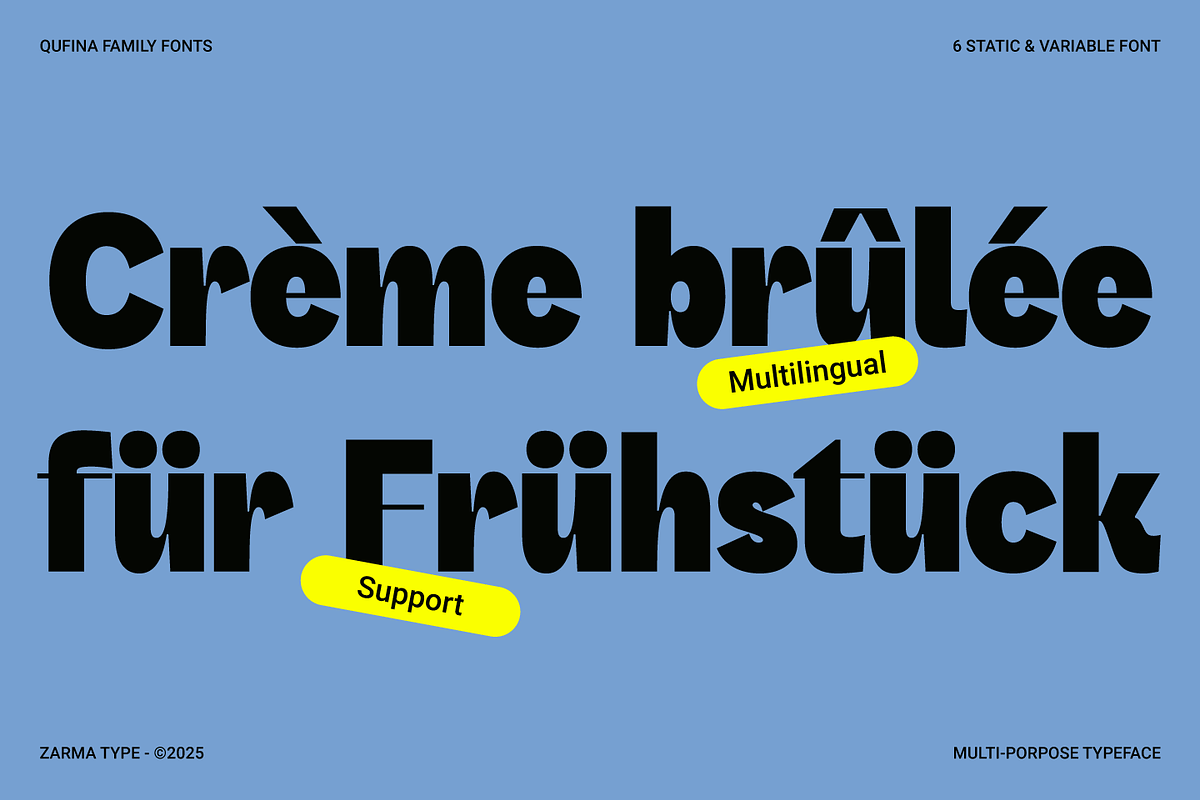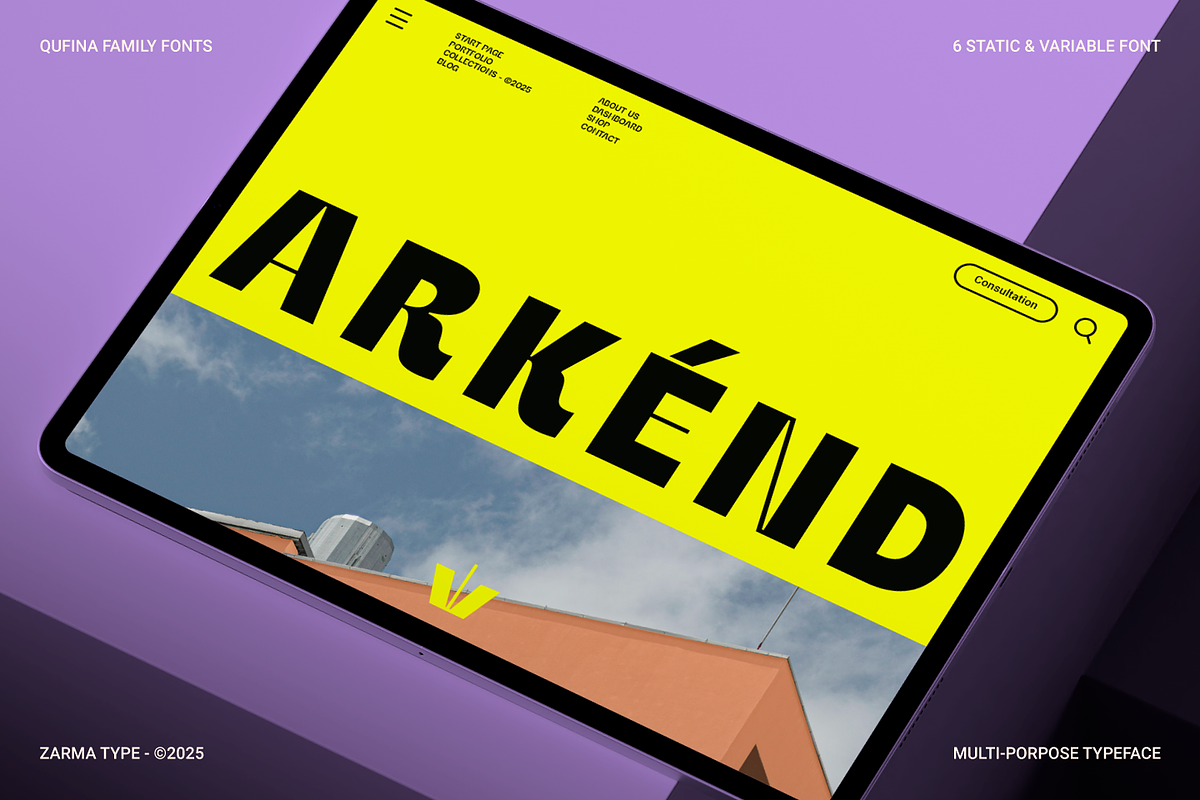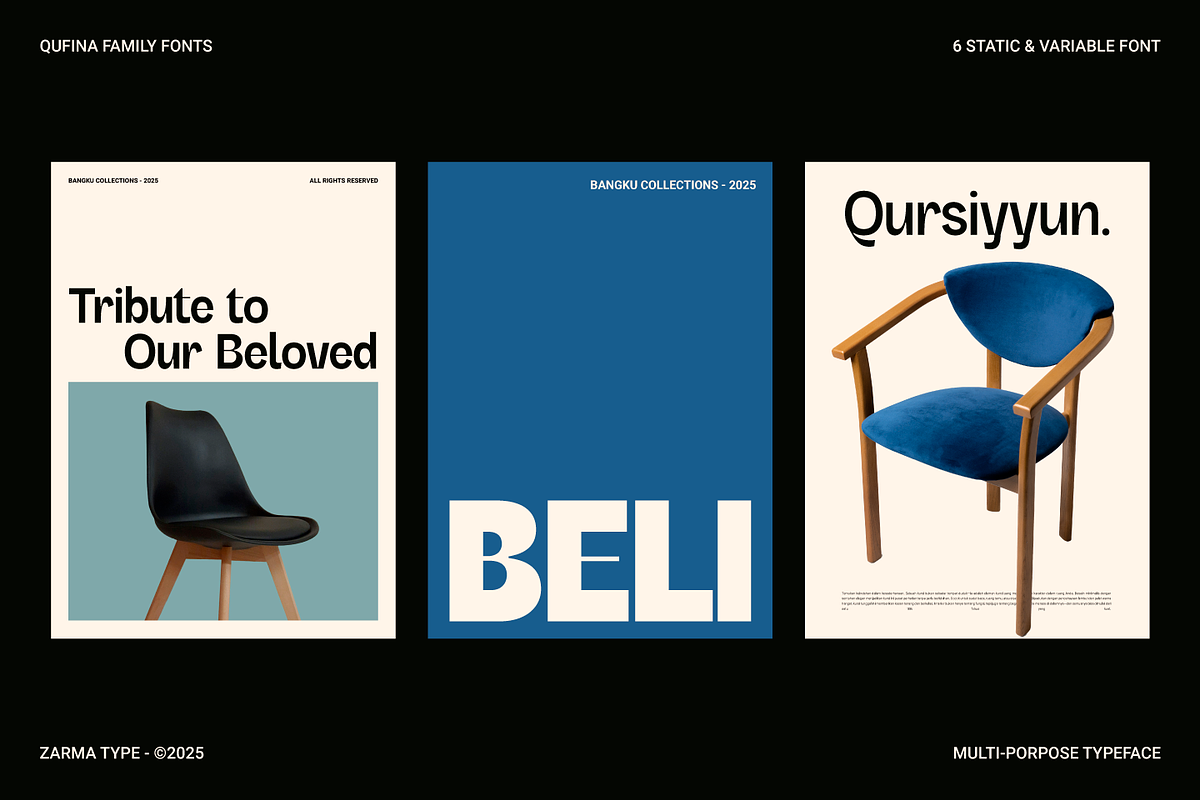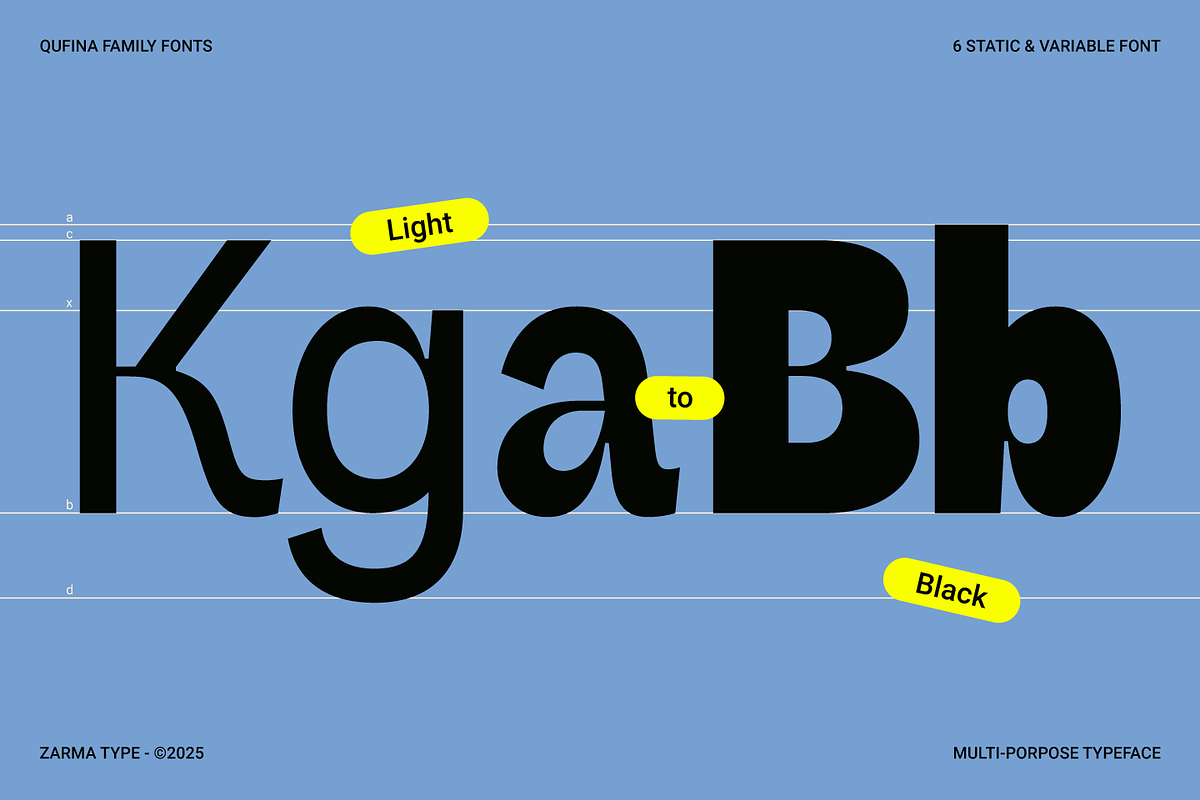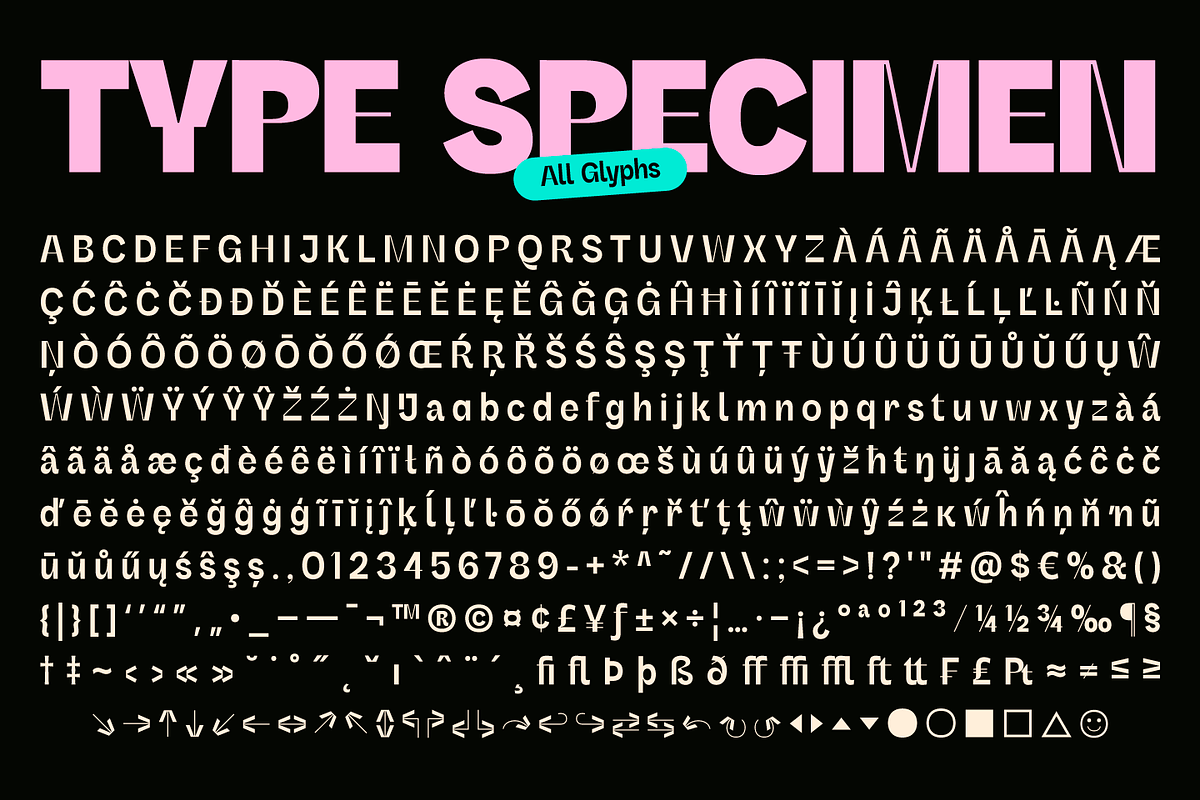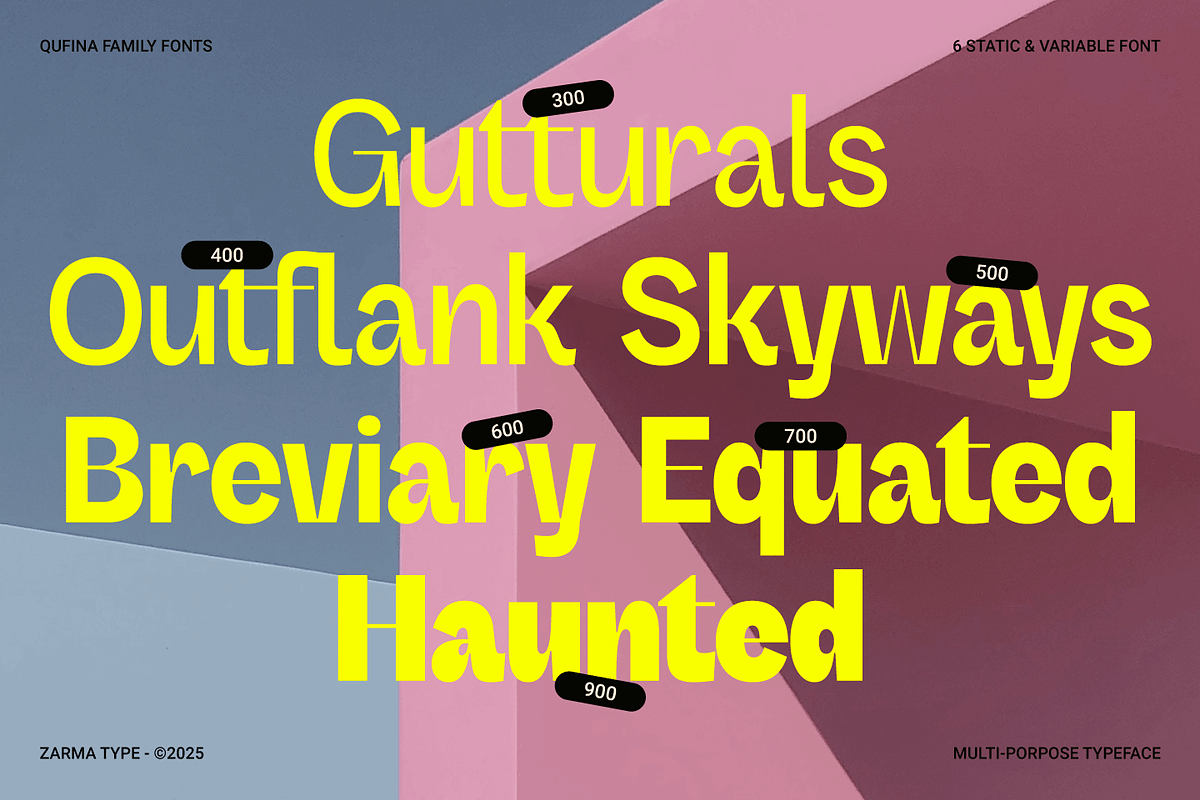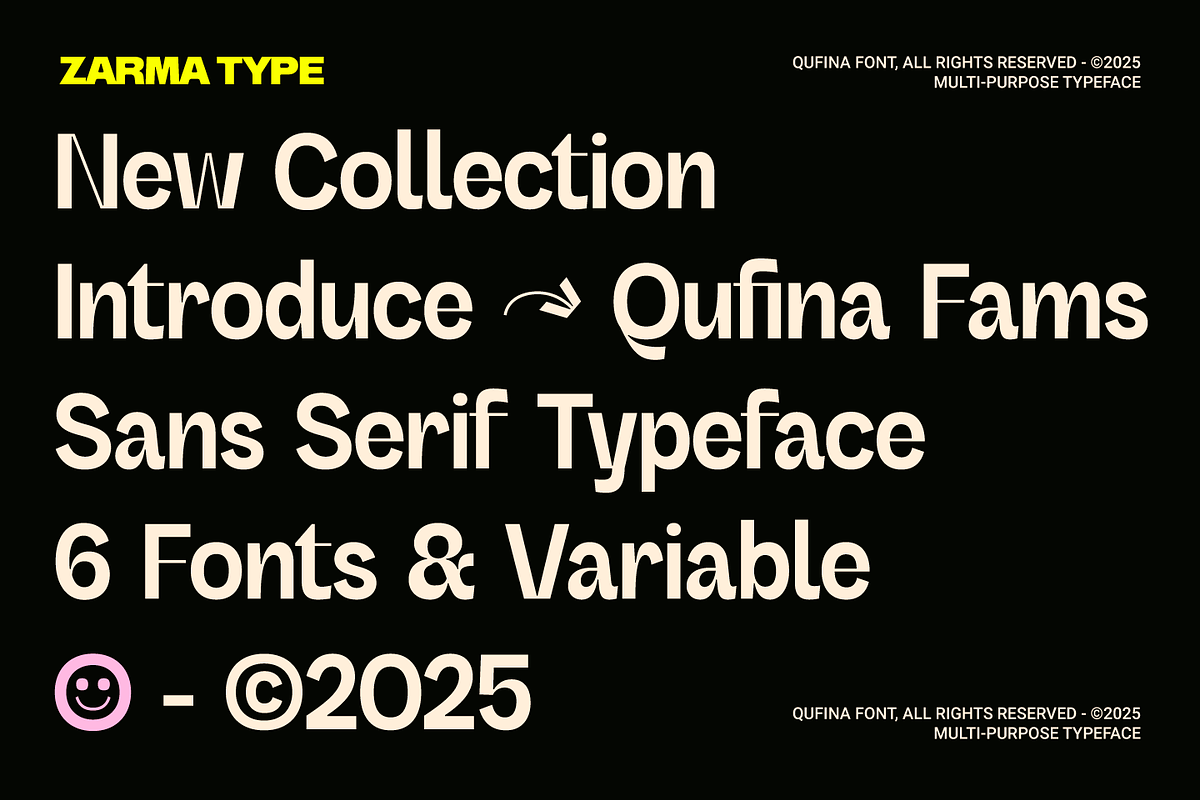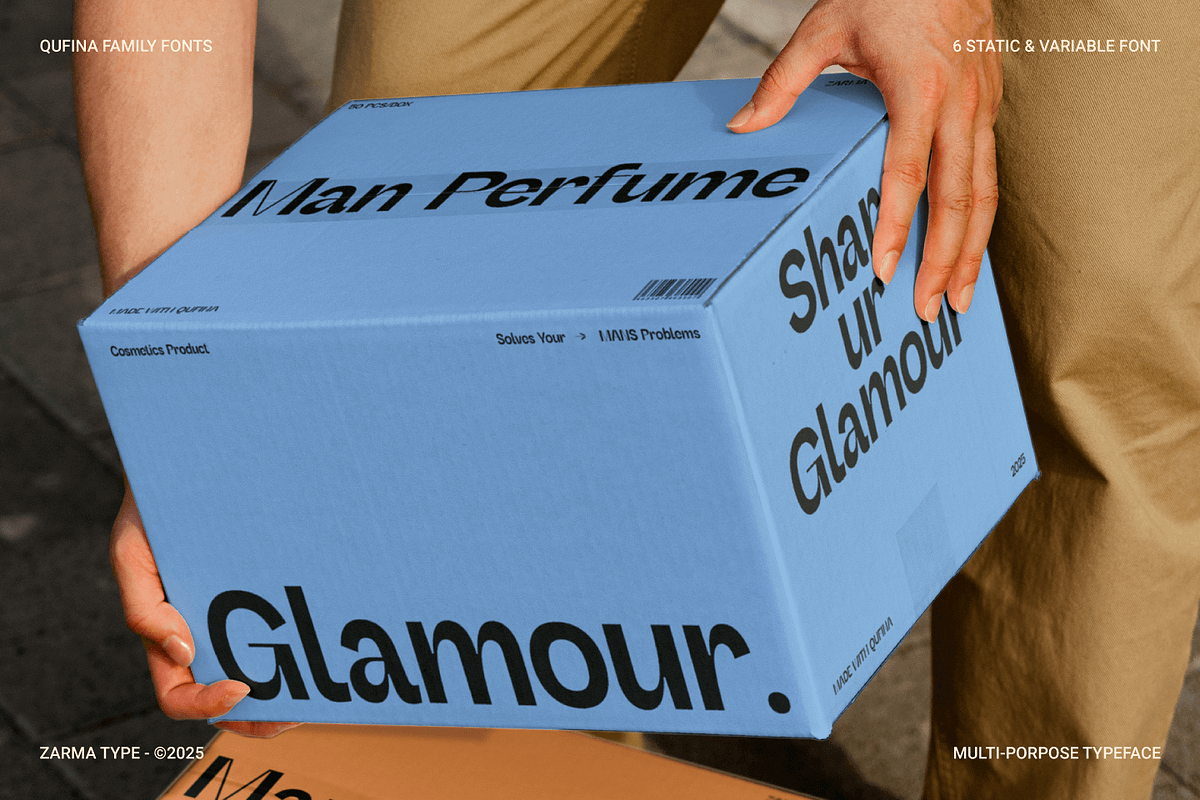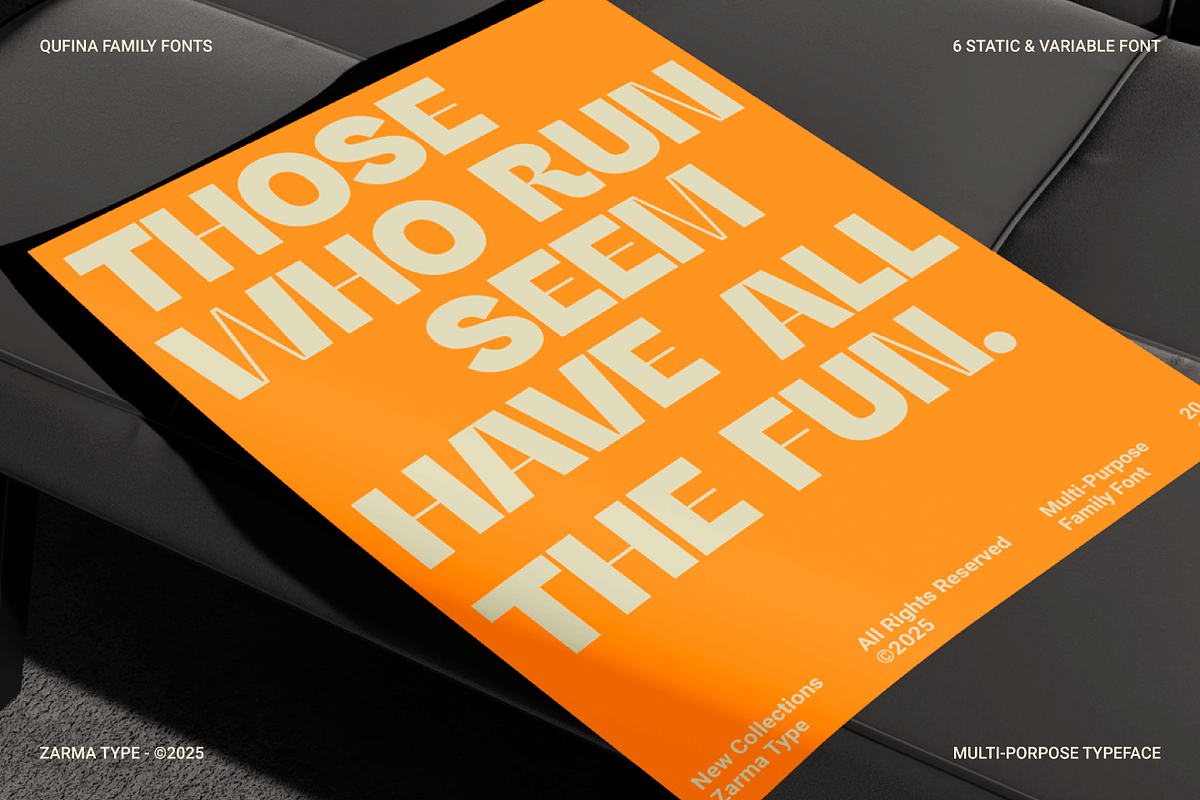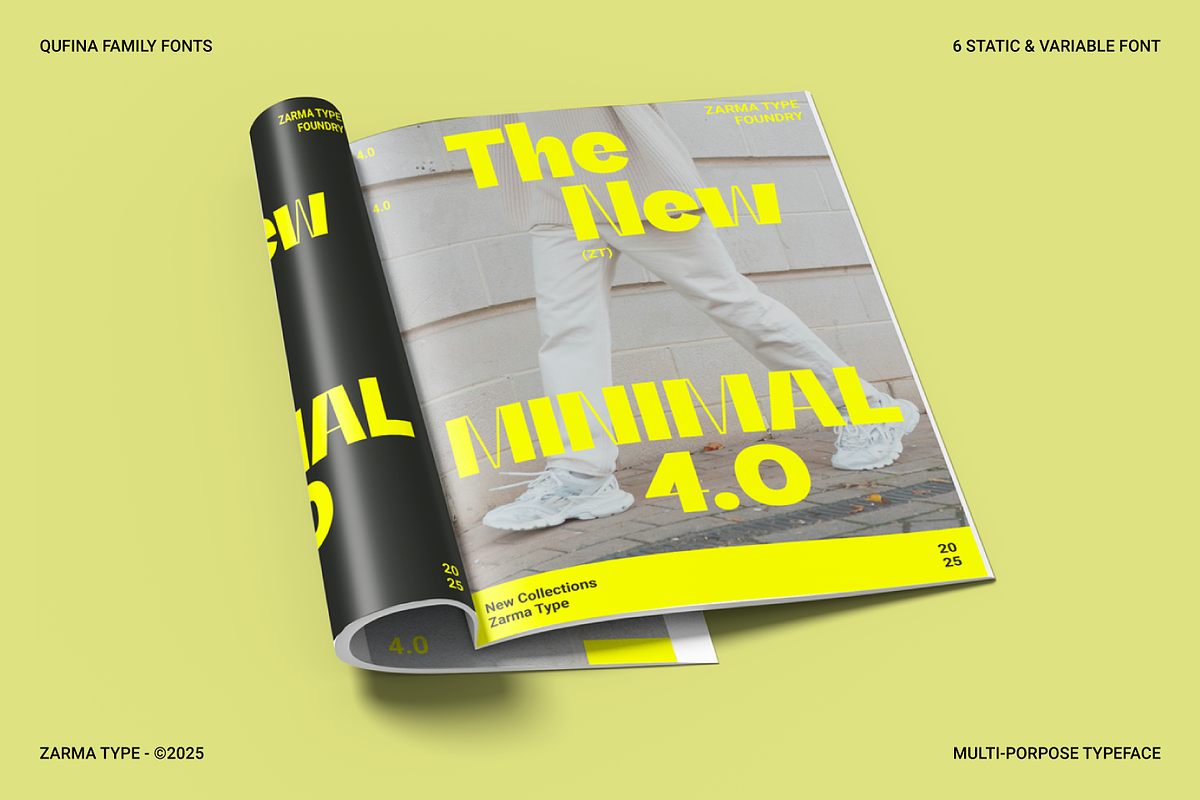
Qufina - Modern Sans Serif Font
Qufina is a modern sans serif font family designed with bold clarity, functional elegance, and versatile personality. With six distinct weights and a powerful variable version, Qufina offers seamless adaptability across digital and print formats. From sleek editorial spreads to standout signage, Qufina’s quirky letterforms and geometric balance give every project a fresh and youthful twist while remaining professional and polished. The font’s clean curves and sharp terminals reflect modern typographic trends that favor bold minimalism with personality.
Whether you're crafting branding for tech startups, contemporary packaging, or eye-catching web banners, Qufina brings instant visual appeal. Its smooth letterforms and playful energy make it ideal for designers who value flexibility without sacrificing uniqueness. Pair it with bright colors, bold layouts, or minimalist grids—Qufina will always hold its own and elevate your design voice.
- Brand identity and logos
- Magazine and editorial layouts
- Display typography
- Fashion and lifestyle branding
- Web and digital interfaces
- Packaging and poster designs
- 6 weights: Light, Regular, Medium, Semi-Bold, Bold, Black
- Variable font version
- OpenType features
- Extended Latin